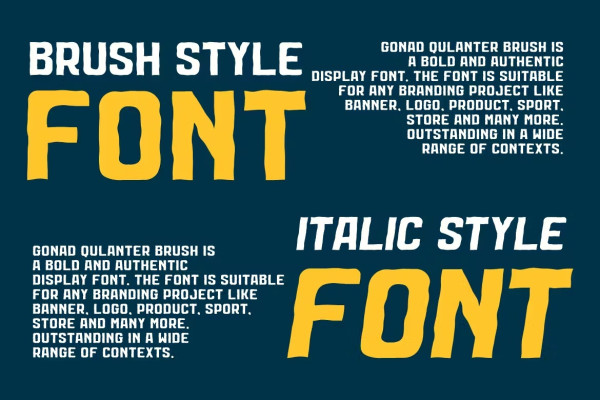
Kishare Brush Font
Kishare Brush Font – Regular + Italic Font is a bold and authentic display font. The font is suitable for any branding project like logo, poster, food, sport, and many more. Outstanding in a wide range of contexts.